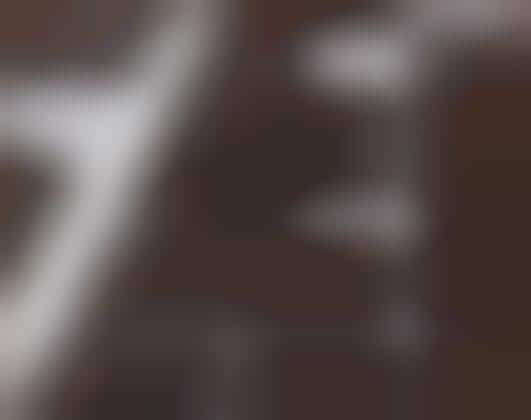
Typolade makes chocolate typefaces. If offered, always take the W - since it is the widest letter, you'll get more chocolate. It’s quite a spell until VD (Valentine’s Day), but giving your lover an STD would be so sweet.
Implications - Typography and old-fashioned printing techniques such as letterpress have experienced a resurgence due to the DIY movement, and even food manufacturers are getting in on the action. These edible fonts allow typography geeks to show off their love of the written word through chocolate -- a medium nearly anyone can appreciate.
Edible Typefaces
The Typolade Chocolate Font